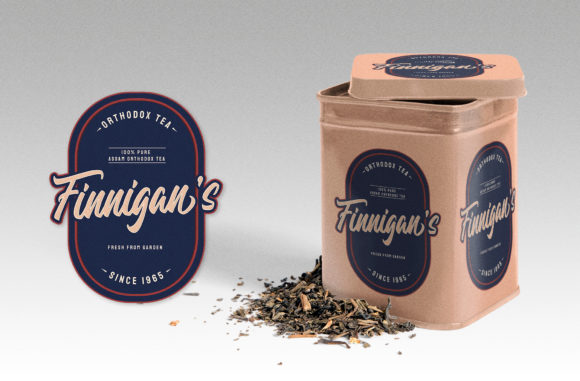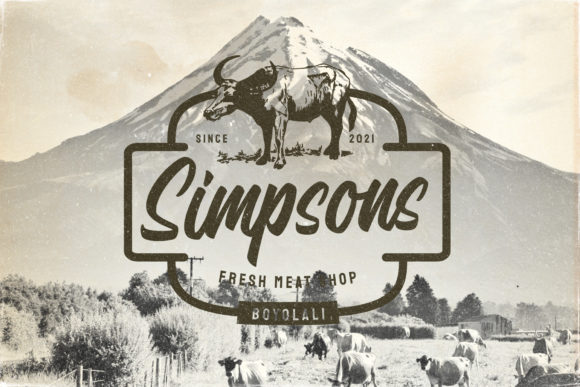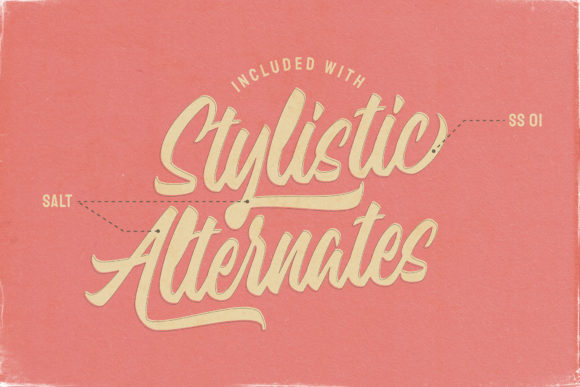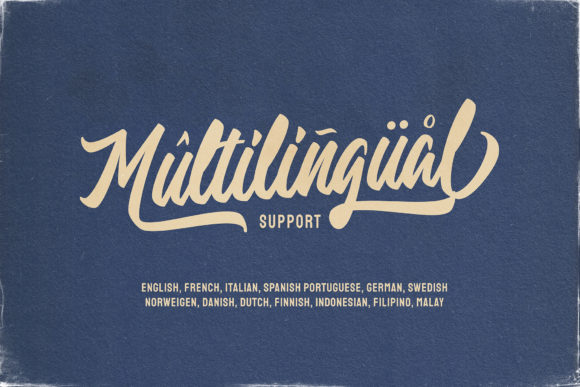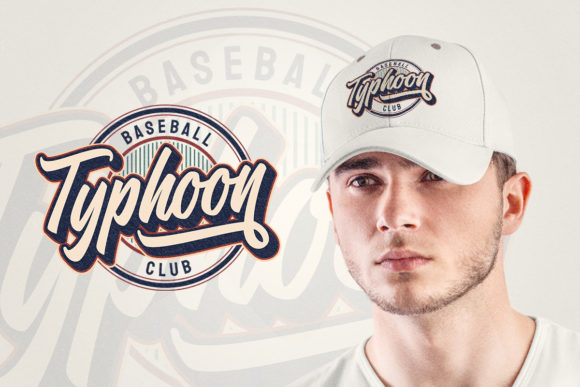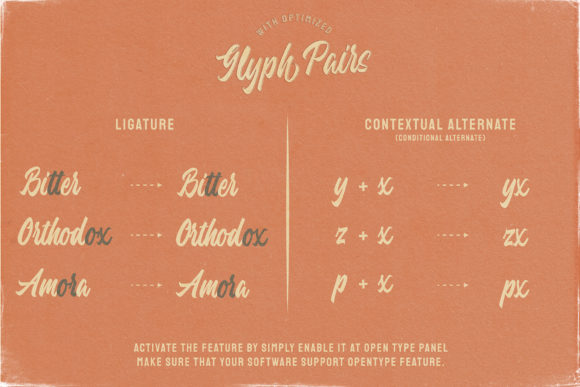
Introducing Atshushi Script Font: Elevate Your Designs with a Stylish Touch
In the world of typography, a well-crafted font can make all the difference in elevating your designs from ordinary to extraordinary. If you’re a designer or crafter looking for a stylish and bold handwritten font to add a touch of sophistication to your projects, look no further than Atshushi Script Font. This gorgeous font is specifically designed to give your headlines and logotype projects a confident and dynamic look that’s sure to leave a lasting impression.
The Characteristics of Atshushi Script Font
Atshushi Script Font is a stunning example of modern typography, boasting a range of characteristics that make it perfect for designers and crafters. Here are just a few of the key features that set this font apart:
- Bold and Confident: Atshushi Script Font reads as strong, confident, and dynamic, making it perfect for headlines, logotypes, and other high-impact designs.
- Handwritten Style: This font features a gorgeous handwritten style that’s perfect for adding a touch of personality and whimsy to your designs.
- Nostalgic Character: Atshushi Script Font has a nostalgic feel that’s sure to evoke memories of classic designs from the past.
- Versatile: This font is incredibly versatile, making it suitable for a wide range of design projects, from branding and advertising to packaging and more.
Why Choose Atshushi Script Font?
With so many fonts to choose from, why should you choose Atshushi Script Font for your next design project? Here are just a few compelling reasons:
- Unique Style: Atshushi Script Font offers a unique and distinctive style that’s sure to set your designs apart from the crowd.
- Ease of Use: This font is incredibly easy to use, even for designers who are new to working with script fonts.
- High-Quality: Atshushi Script Font is a high-quality font that’s been carefully crafted to ensure that it looks great in any design.
How to Use Atshushi Script Font in Your Designs
Now that you know more about Atshushi Script Font, let’s take a look at how you can use it in your designs. Here are a few ideas to get you started:
- Headlines: Use Atshushi Script Font to create bold and eye-catching headlines that grab your audience’s attention.
- Logotypes: This font is perfect for creating custom logotypes that reflect your brand’s personality and style.
- Branding: Use Atshushi Script Font to add a touch of sophistication and elegance to your branding materials, such as business cards and brochures.
- Packaging: This font is also great for packaging design, adding a touch of whimsy and personality to your product packaging.
Tips and Tricks for Working with Atshushi Script Font
Here are a few tips and tricks to help you get the most out of Atshushi Script Font:
- Experiment with Different Sizes: Don’t be afraid to experiment with different font sizes to find the perfect balance for your design.
- Play with Color: Atshushi Script Font looks great in a range of colors, so don’t be afraid to get creative and try out different color schemes.
- Combine with Other Fonts: This font pairs well with a range of other fonts, so feel free to experiment with different combinations to find the perfect look for your design.